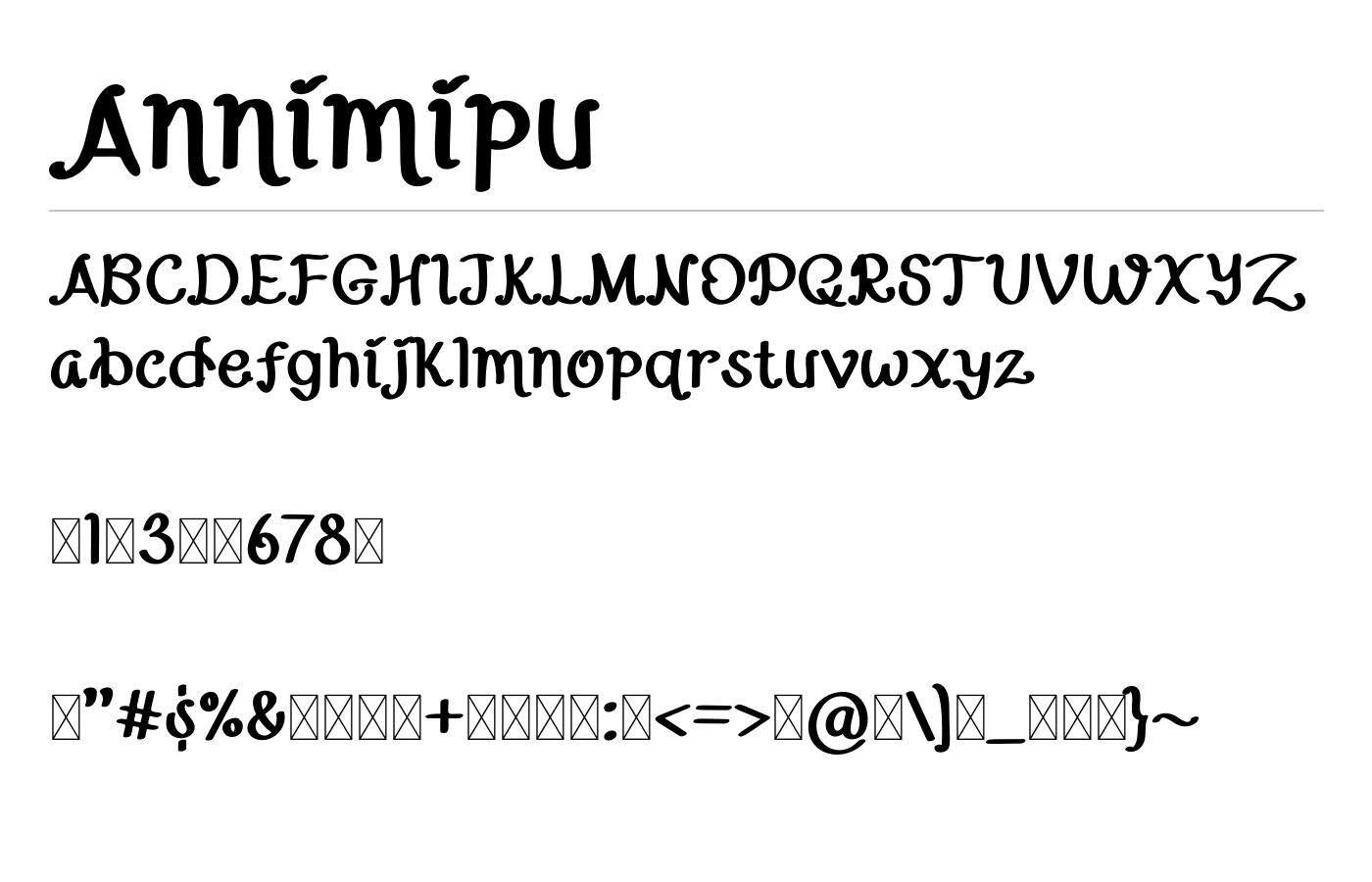
Annimipu is a playful and artistic serif font with a hand-drawn feel, featuring moderate stroke contrast and unique, curved letterforms that blend whimsy with readability. Its lively character shapes and organic flow make it ideal for creative branding, invitations, and casual editorial projects seeking a warm yet distinctive personality. This font works best in headlines or display text where its charm and individuality can shine.
Annimipu Font
About Annimipu Font